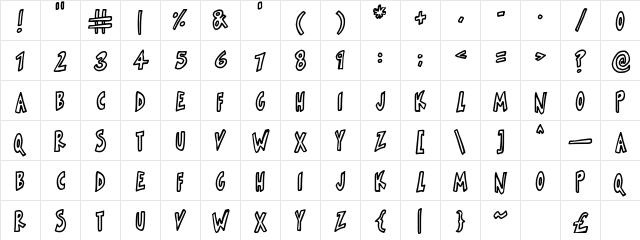
Skinnymalink Regular
Design Context for Skinnymalink
Skinnymalink is a composed and adaptable typeface that performs quietly and consistently across a wide range of design contexts.